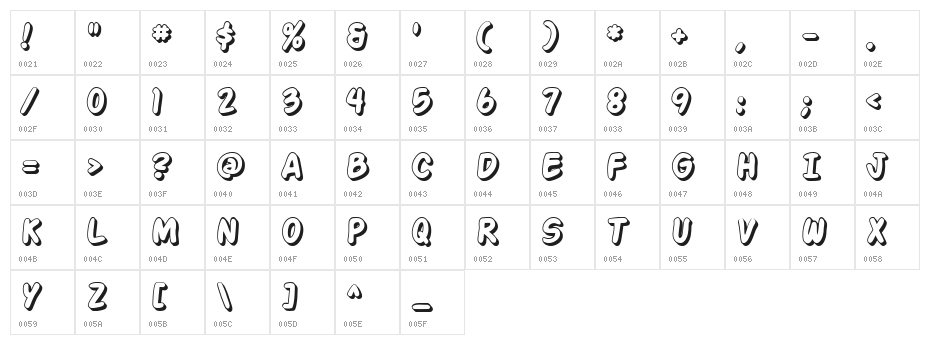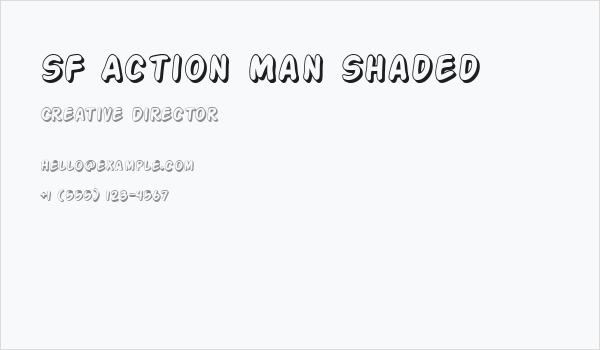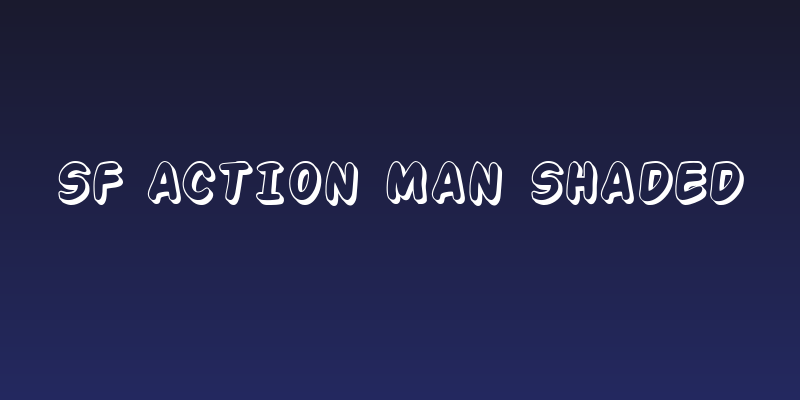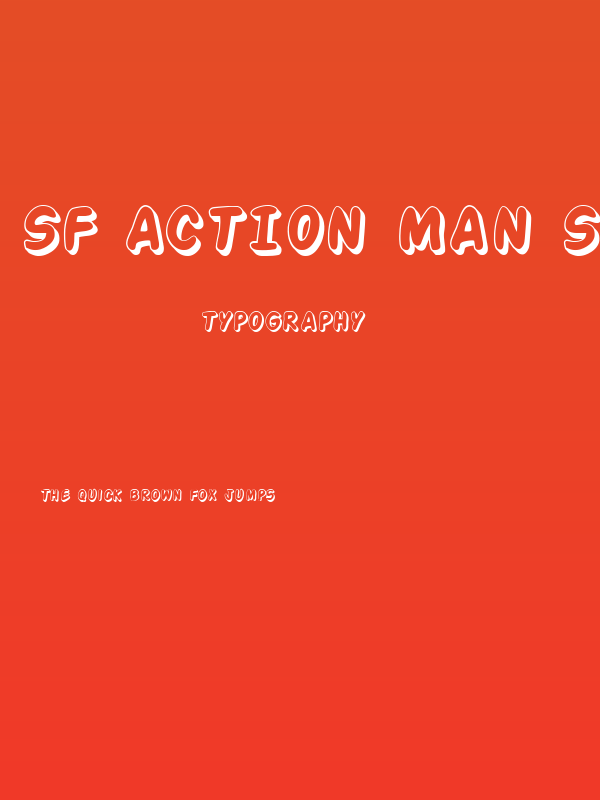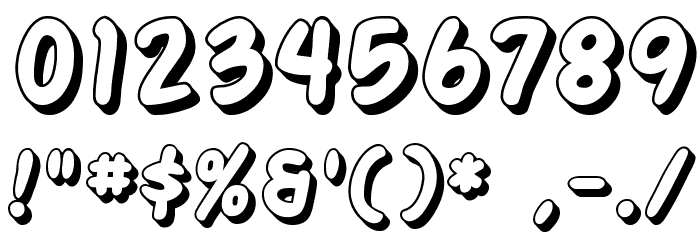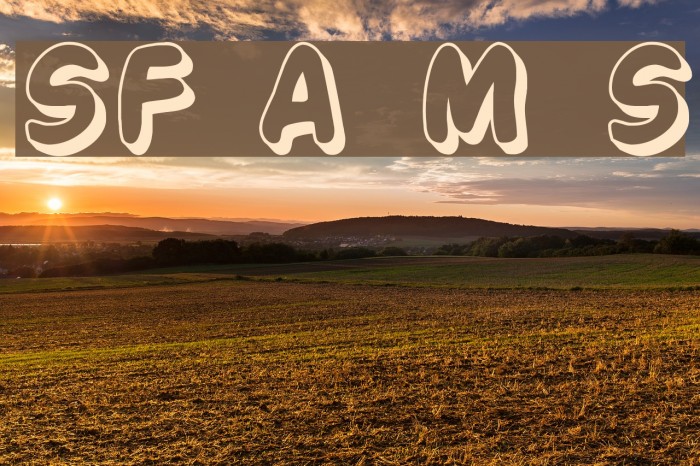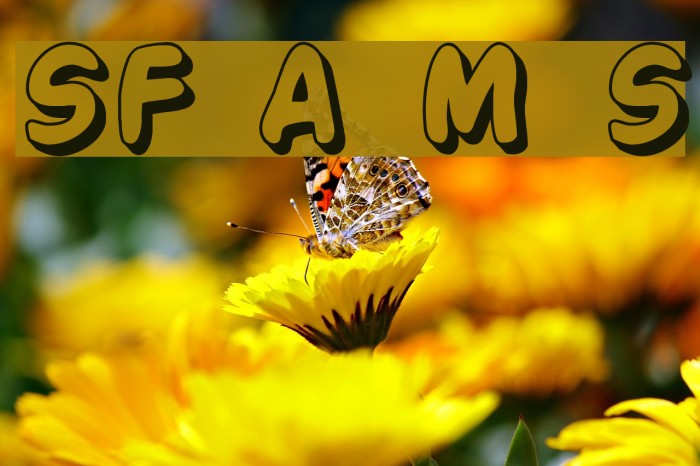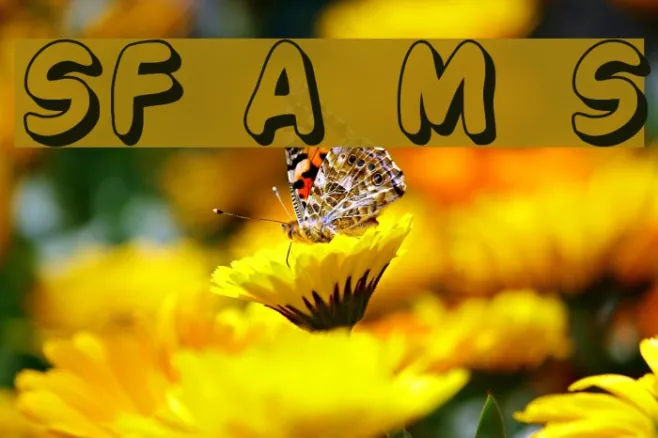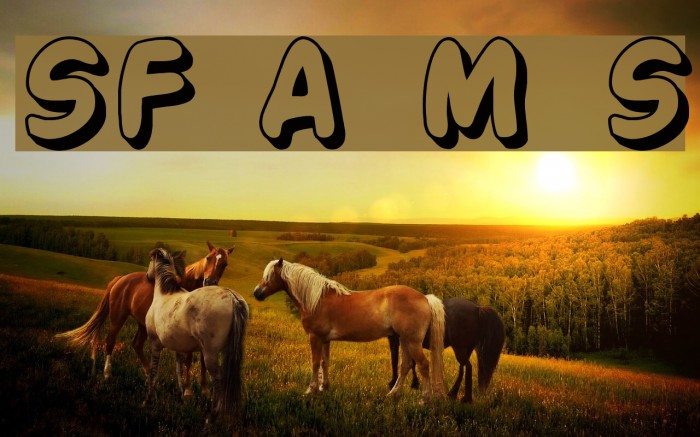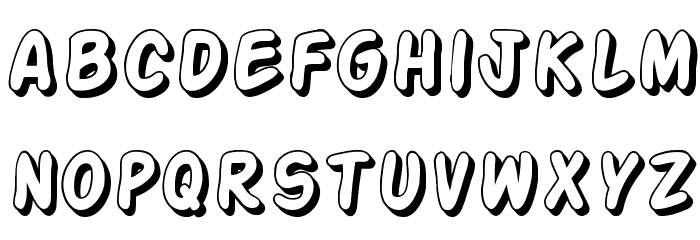
SF Action Man Shaded Font
SF Action Man Shaded Description
This font features a bold, playful style with a three-dimensional shaded effect that gives each character a sense of depth and dynamism. The letters are rounded and thick, with a consistent stroke width that enhances readability while maintaining a fun and engaging appearance. The shading adds a shadow-like quality, making the characters appear to pop off the page. This font is ideal for designs that require a lively and energetic feel, such as children's books, comic strips, or playful branding. The numbers and special characters are crafted with the same attention to detail, ensuring a cohesive look across all text elements.
| Overall Style | Playful, Energetic |
| Proposed Projects | Ideal for children's books, comic strips, playful branding, and eye-catching headlines. |